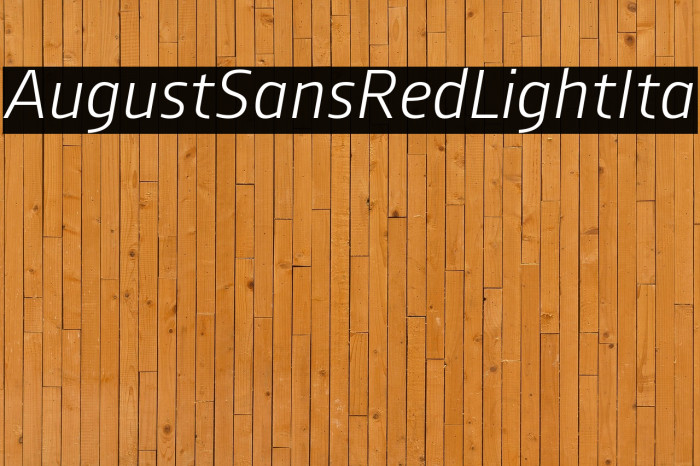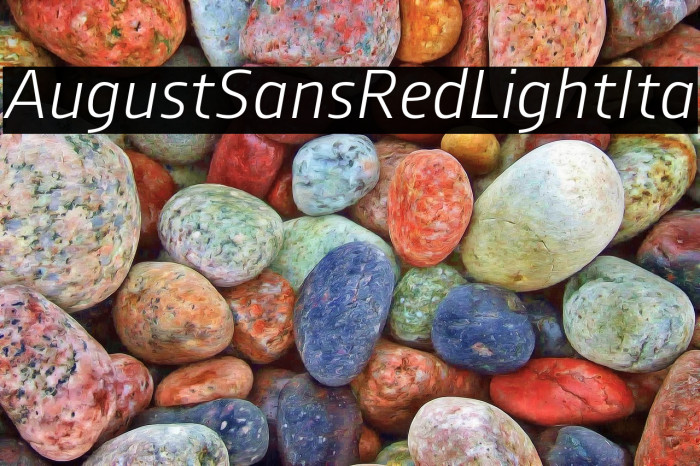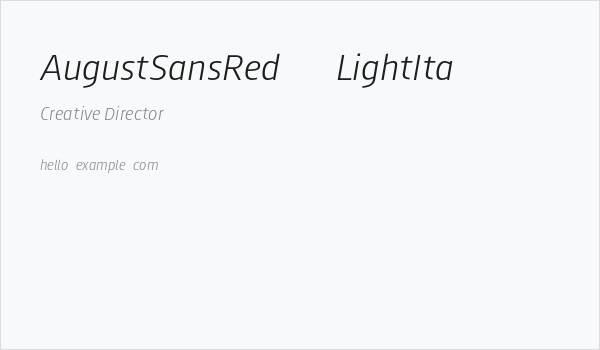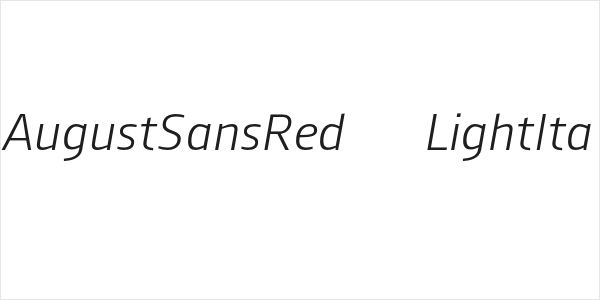
AugustSansRed-46LightIta Font
AugustSansRed-46LightIta Description
This font features a sleek and modern sans-serif design with a light weight and italic style. The characters are slightly condensed, giving it a streamlined appearance. The strokes are consistent and smooth, with a low contrast between thick and thin lines, making it highly legible. The font's clean and minimalist aesthetic is suitable for contemporary design projects. Its italic nature adds a touch of elegance and dynamism, making it versatile for various applications.
| Proposed Projects | Ideal for use in modern branding, editorial design, websites, and digital interfaces where a clean and elegant look is desired. |